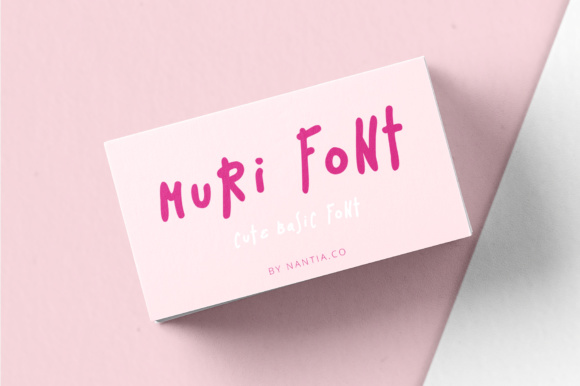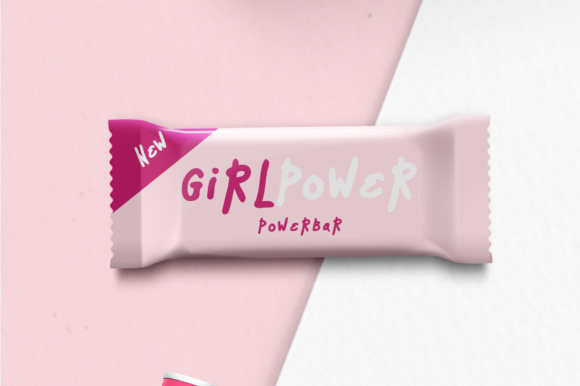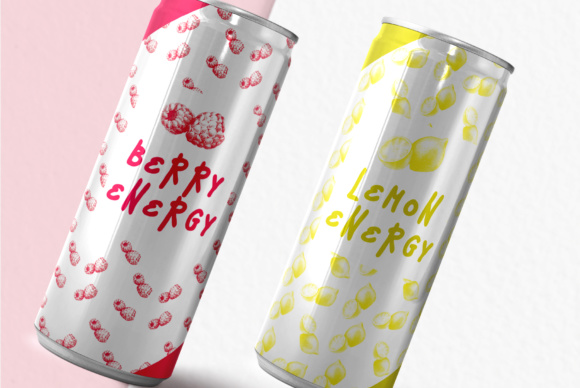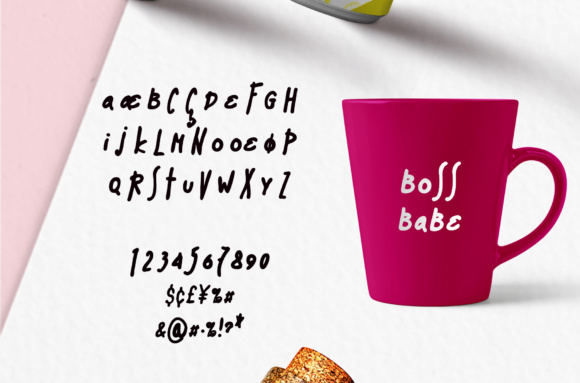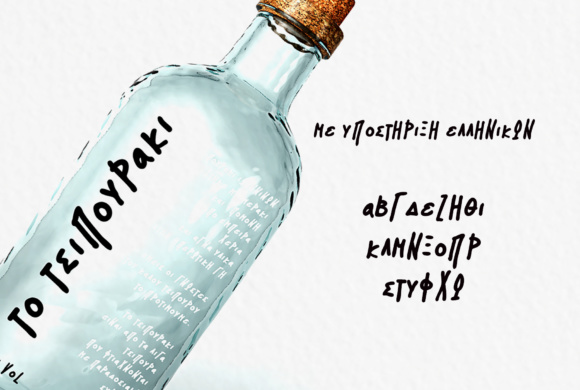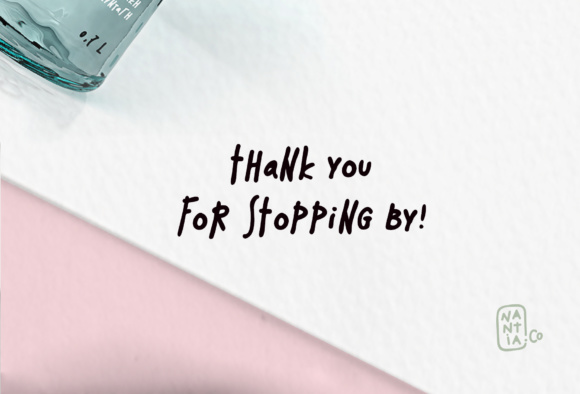
MuRi Font
About MuRi Font
MuRi is your basic cute font. It’s a hand written, multilingual, display font, It’s hand crafted, but it’s still maintaining it’s legibility and balance so it can be used in packaging, logotypes or social media projects.